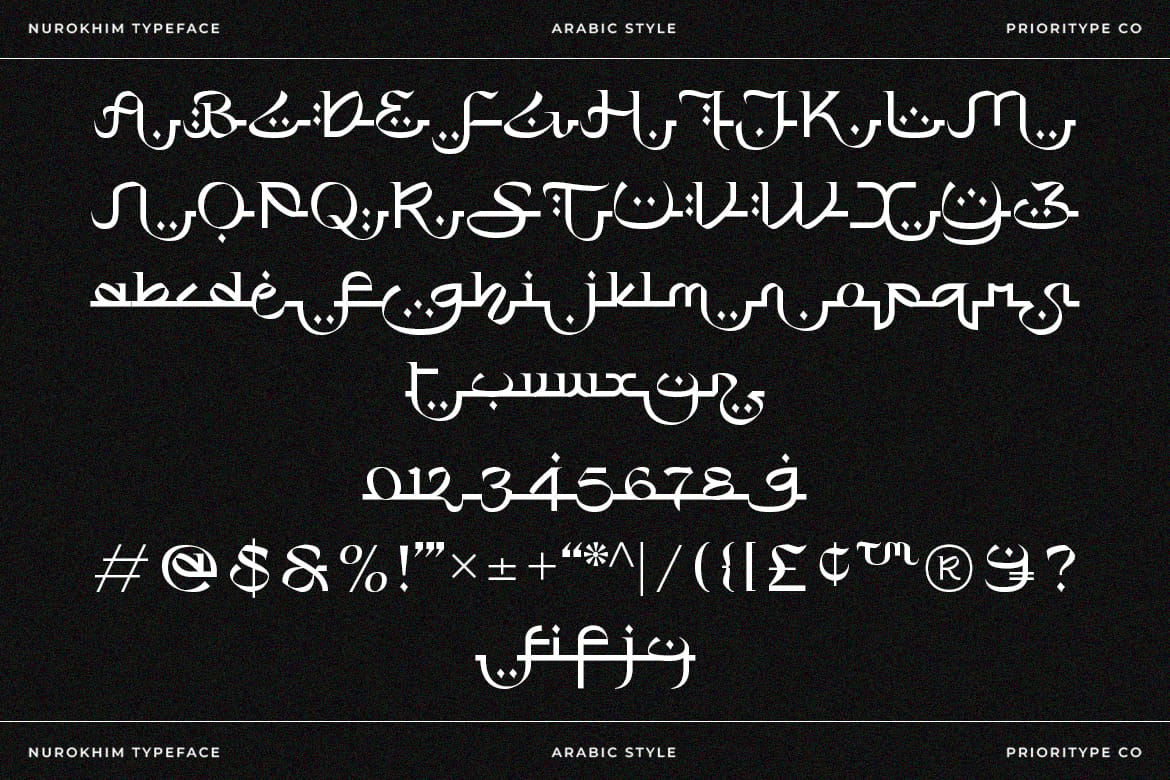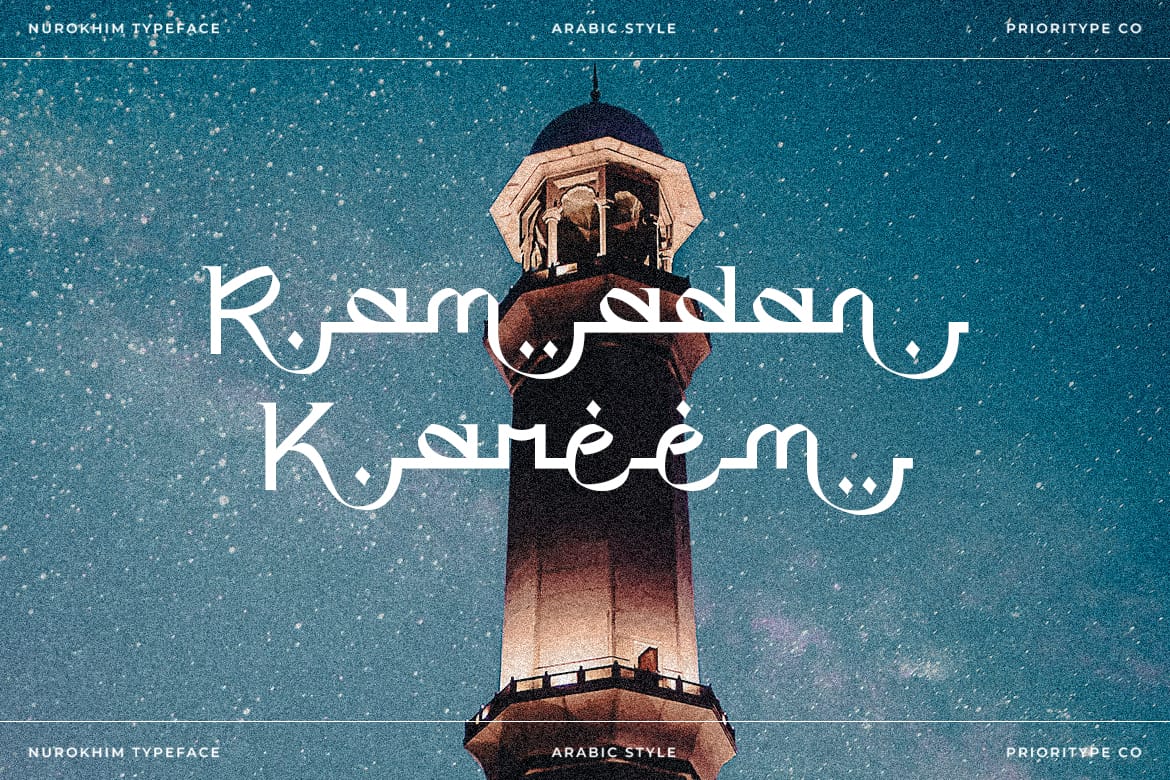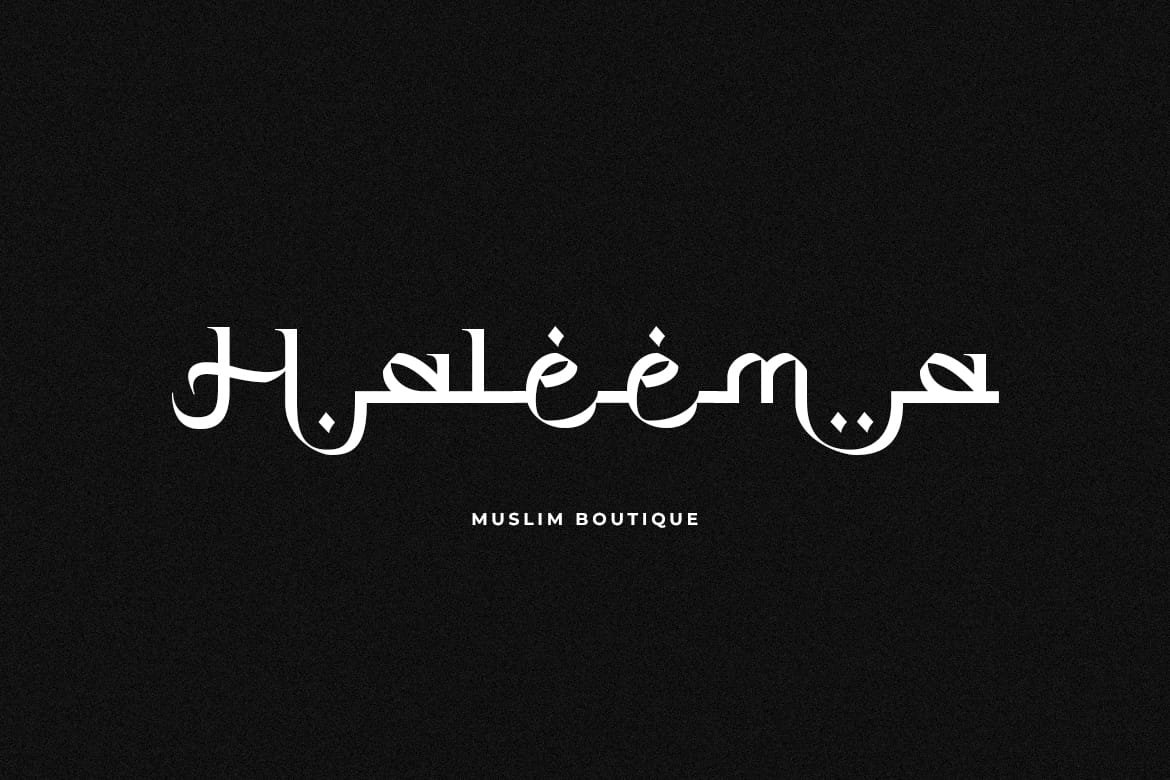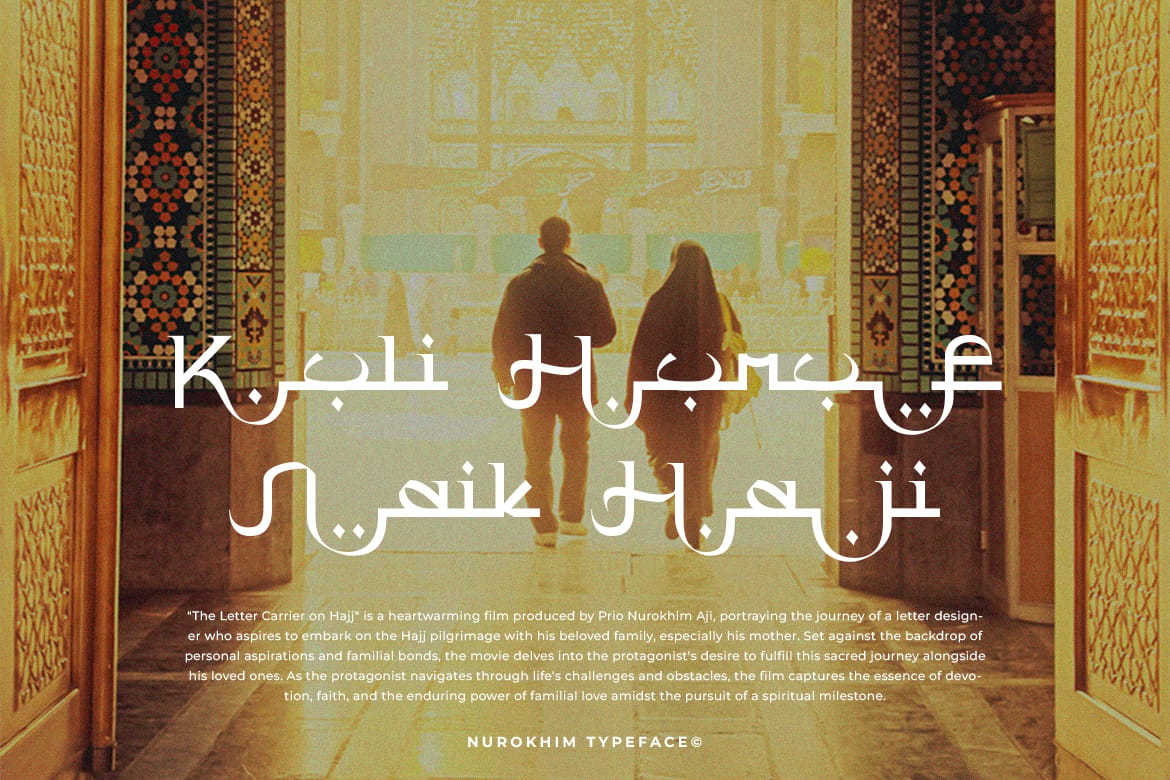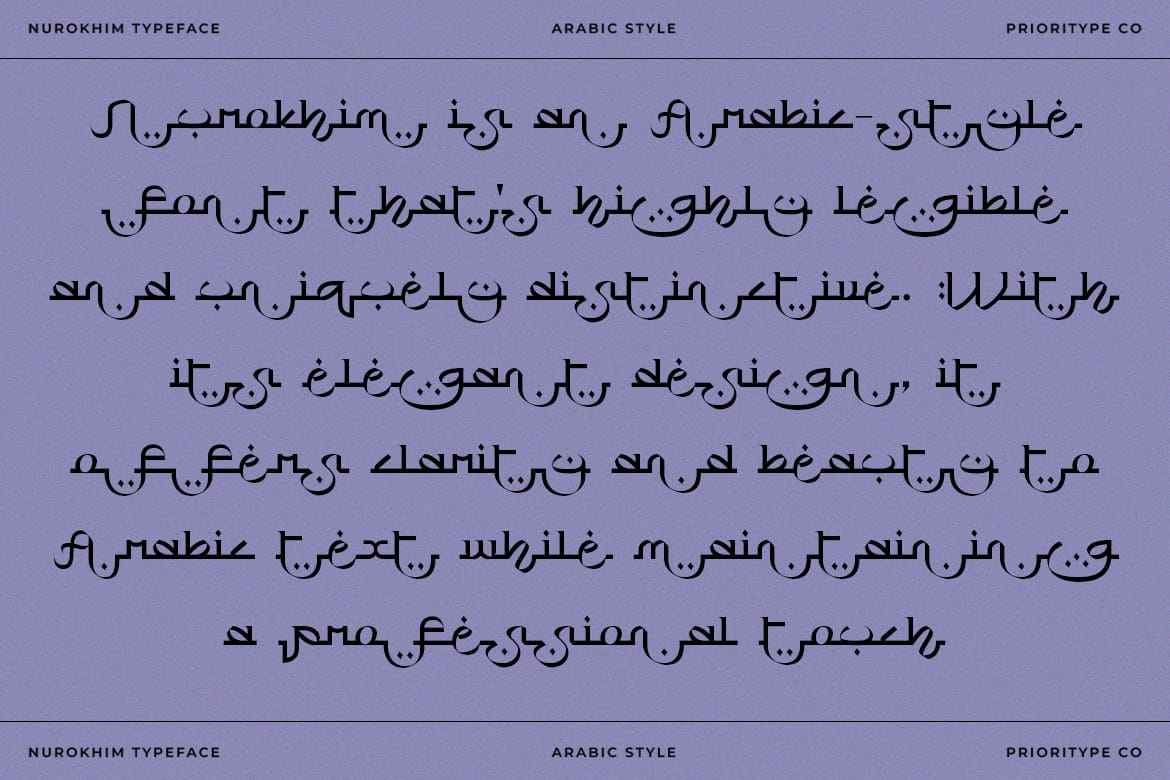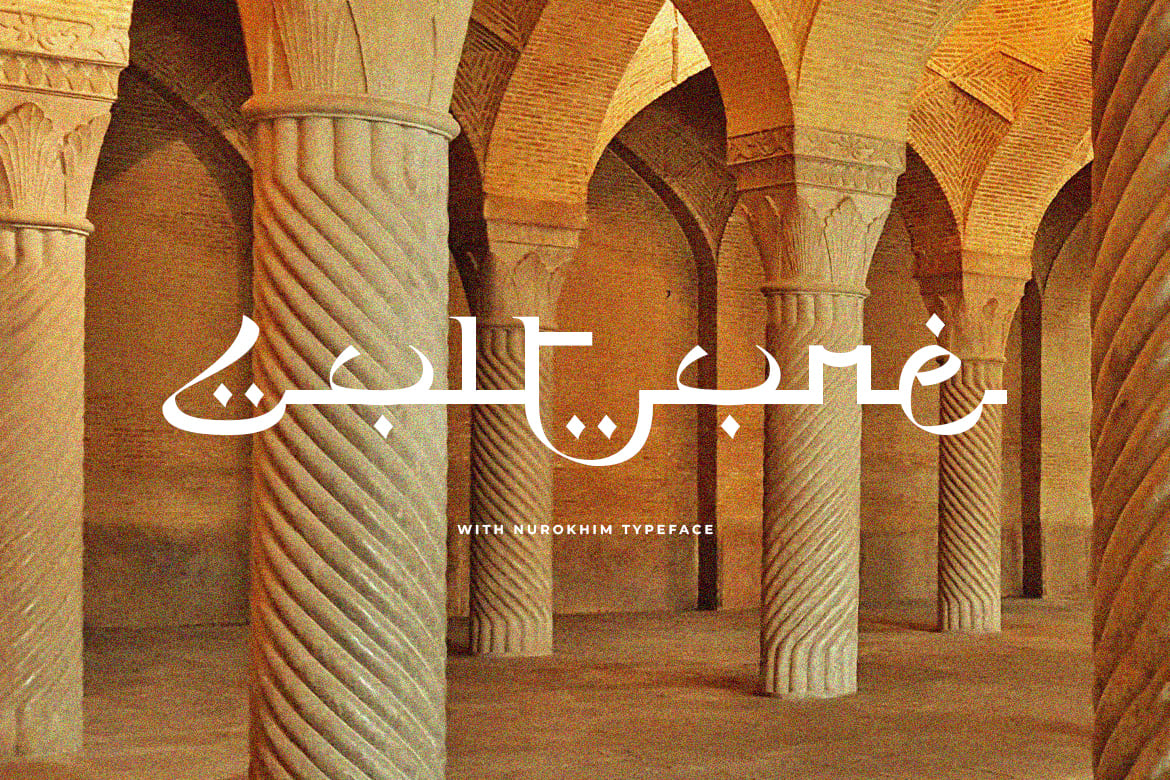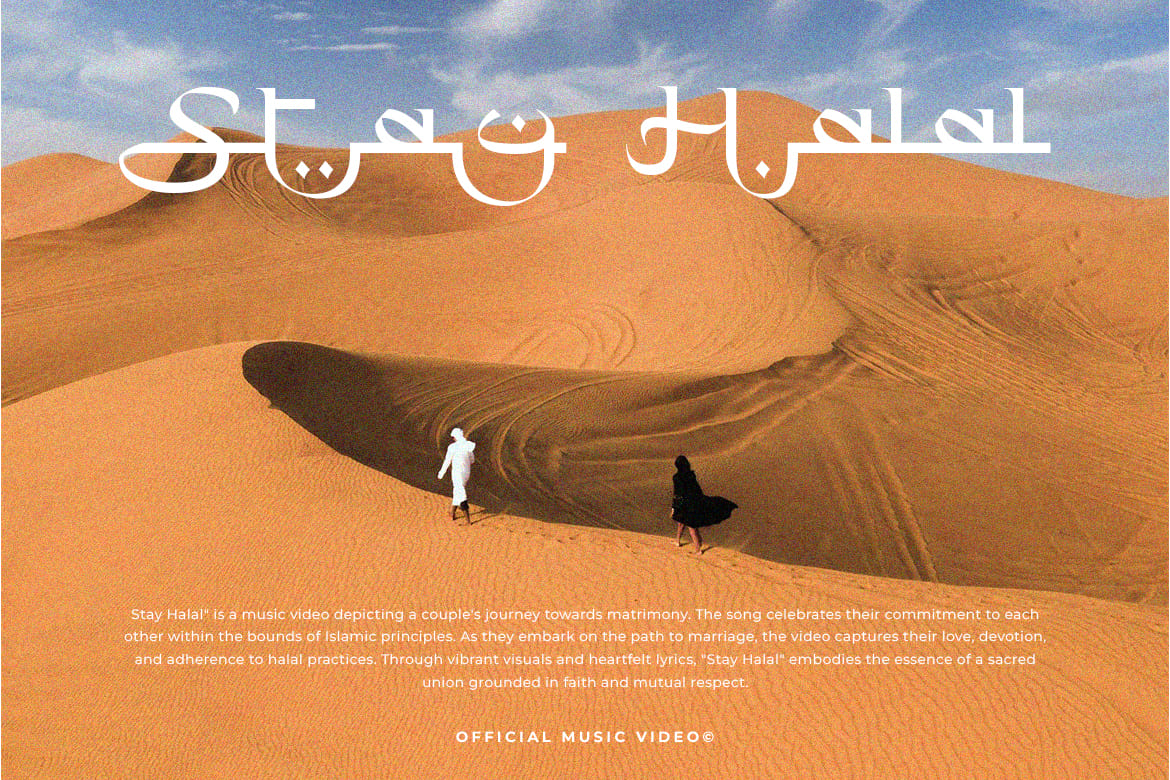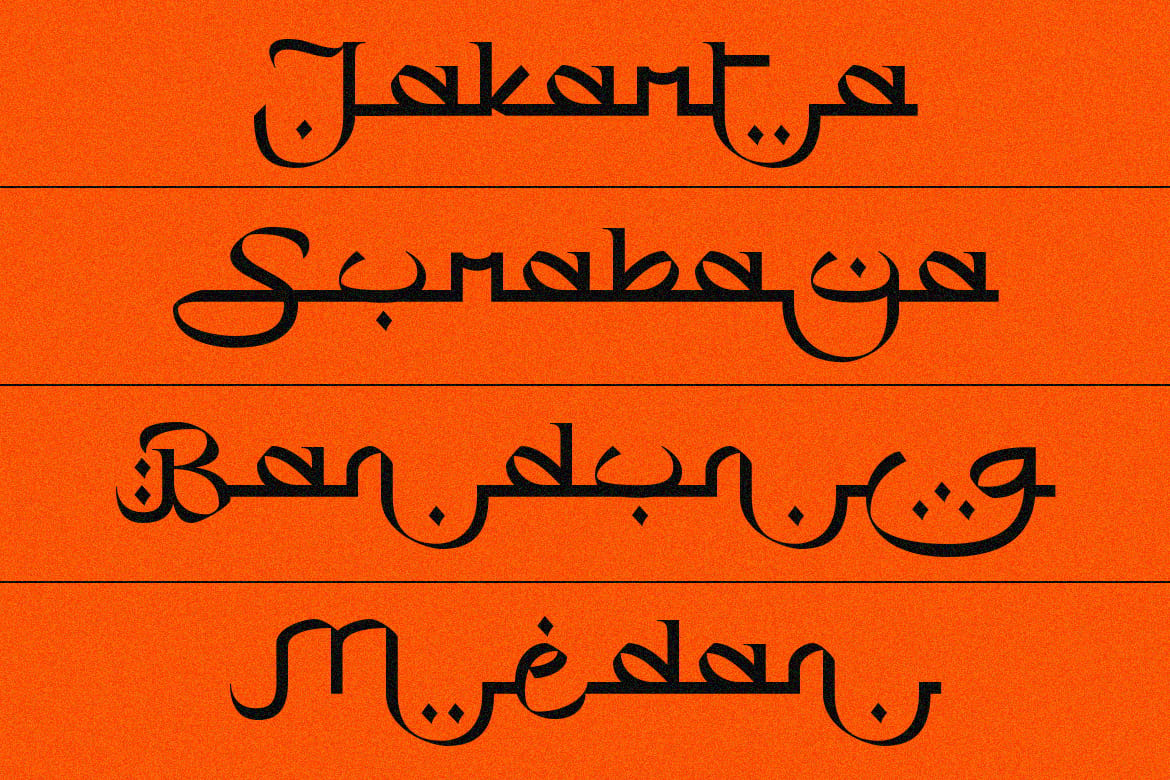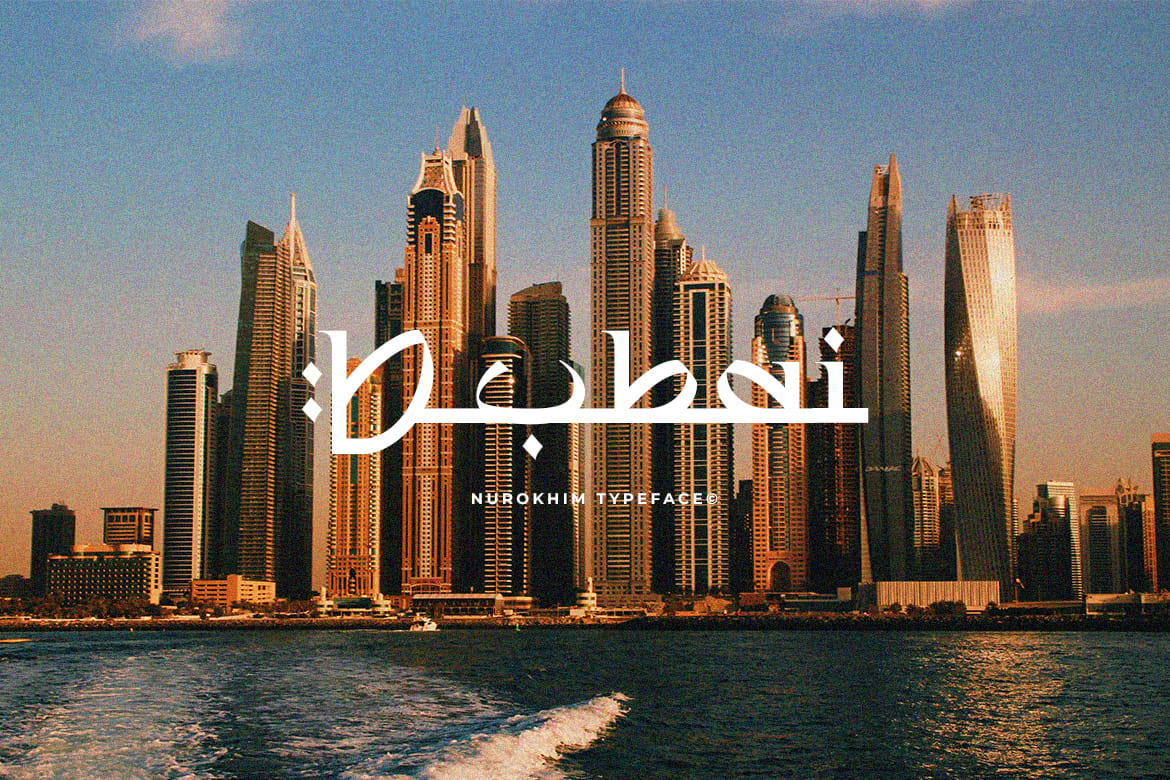
Nurokhim - Arabic Style Font
Nurokhim is an Arabic-style font that's highly legible and uniquely distinctive. With its elegant design, it offers clarity and beauty to Arabic text while maintaining a professional touch, making it suitable for various design purposes such as logo design, branding, posters, and more.
Features: Uppercase, Lowercase, Numeral, Punctuation, Multilingual, Alternates & Ligatures.
- Highly legible Arabic-style font
- Includes alternates and ligatures
- Elegant professional design touch